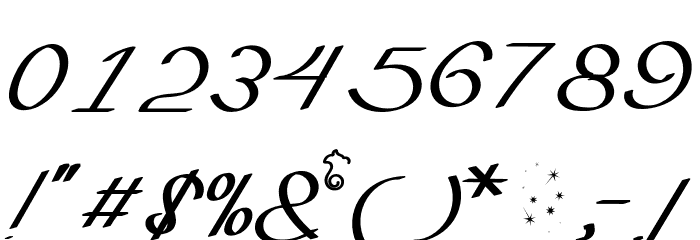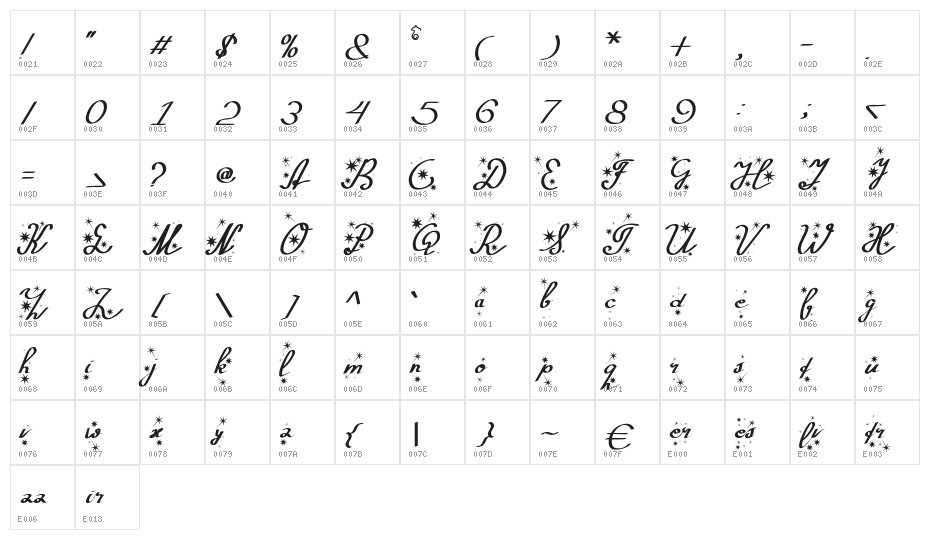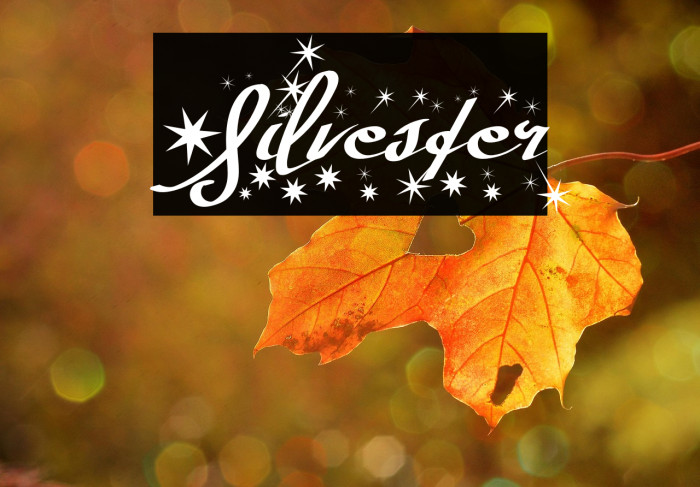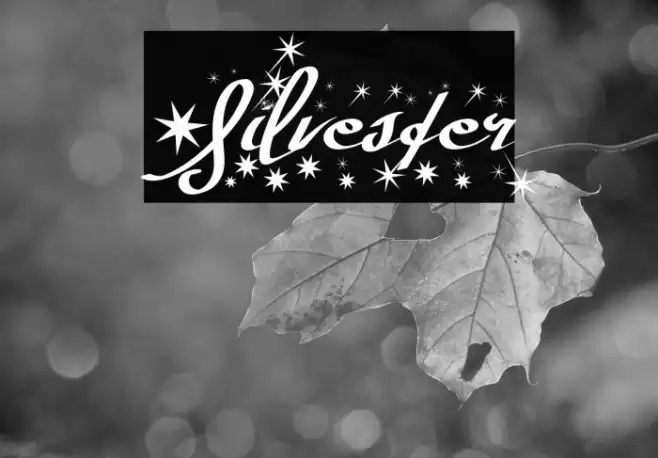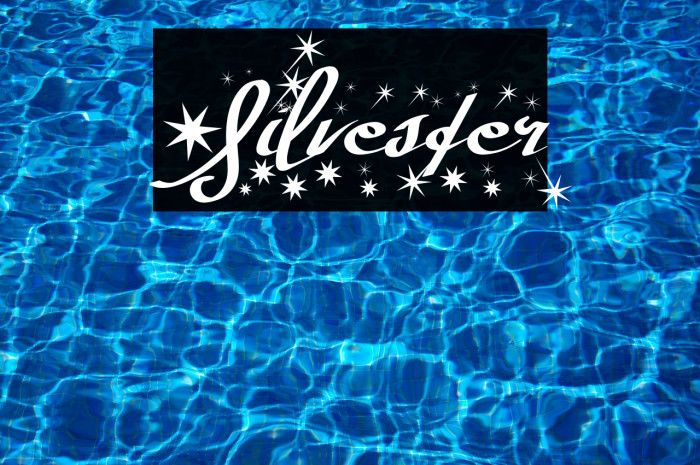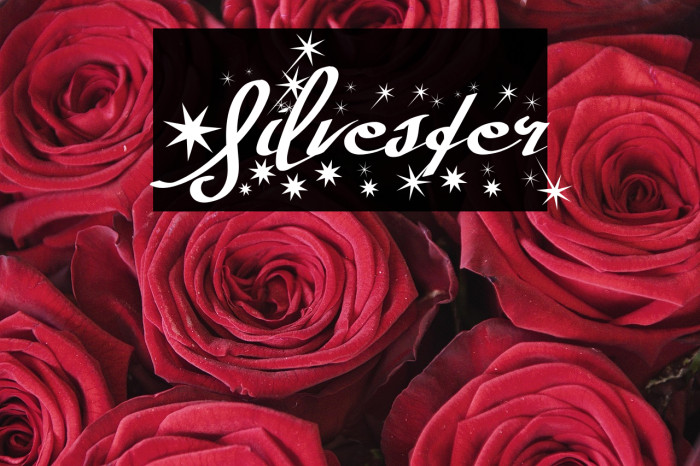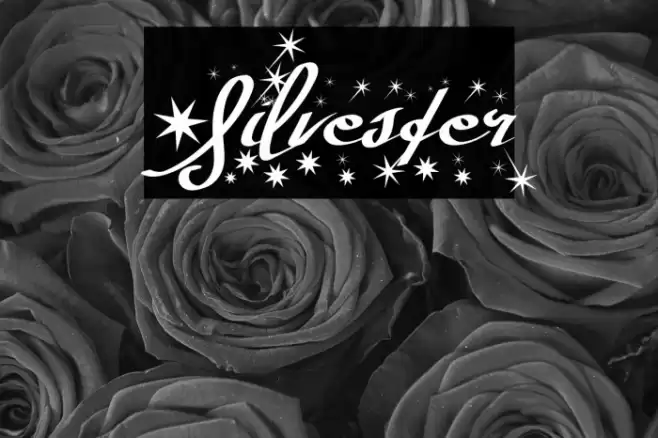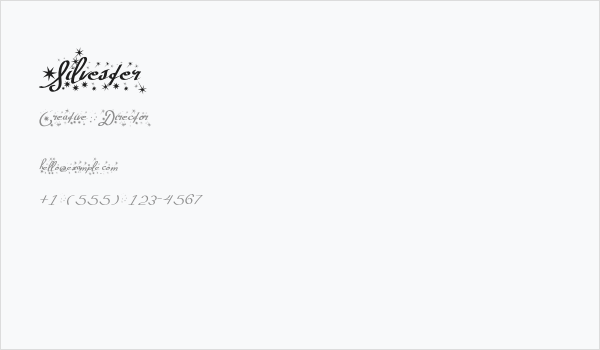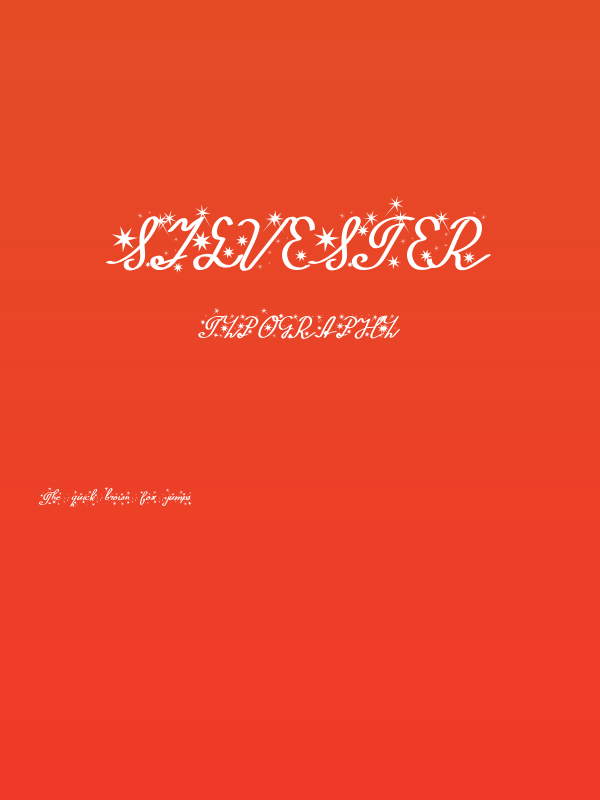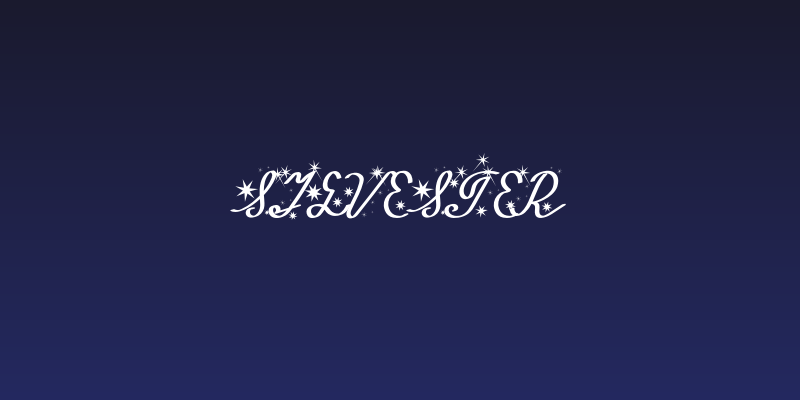
Silvester Font
Silvester Description
This font exudes a whimsical and decorative flair, characterized by its elegant script style adorned with star-like embellishments. The uppercase letters are bold and flowing, with a distinct cursive influence that adds a touch of sophistication. The lowercase letters maintain a consistent style, offering a seamless blend between characters. Numbers are elegantly curved, complementing the overall aesthetic. Special characters are uniquely styled, maintaining the decorative theme. This font is perfect for projects that require a playful yet elegant touch, such as invitations, greeting cards, or festive branding.
| Use Case | Headlines, Logos, Decorative text |
| Proposed Projects | Ideal for invitations, greeting cards, festive branding, and decorative signage. |